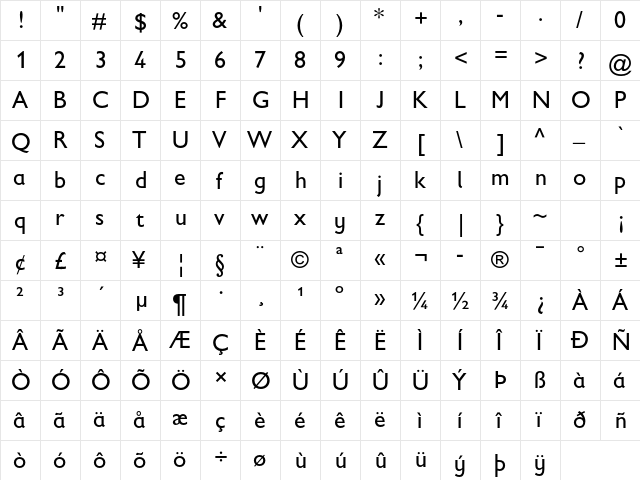
Gill Sans Infant Std Regular
Design Context for Gill Sans Infant Std Typeface
Gill Sans Infant Std takes a measured approach to typography — its balanced proportions and neutral character make it a reliable workhorse for both digital and print work.
Pro Tip: Use Gill Sans Infant Std in both headline and body roles to test its range before committing to a single application.